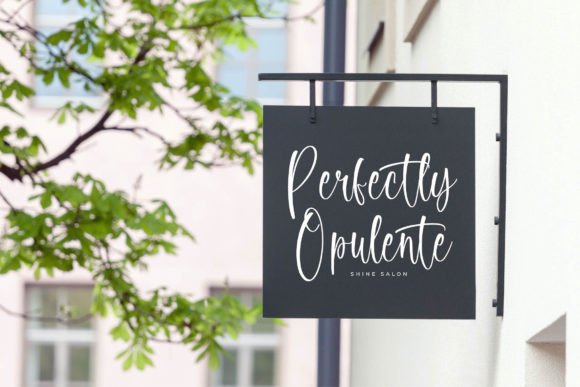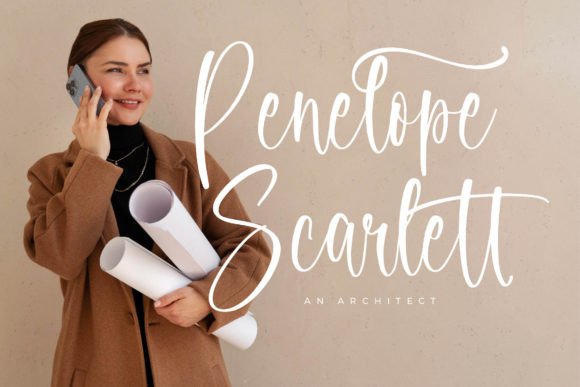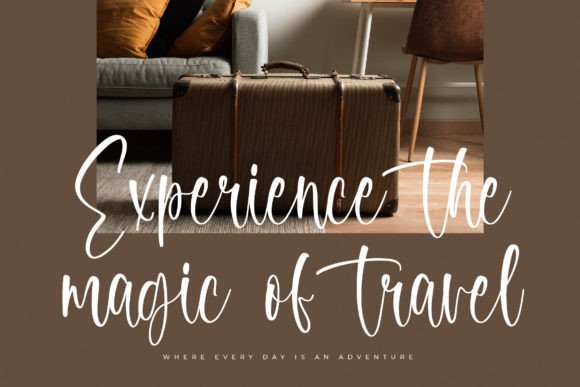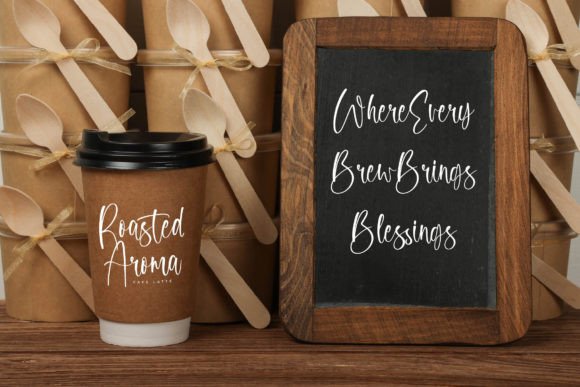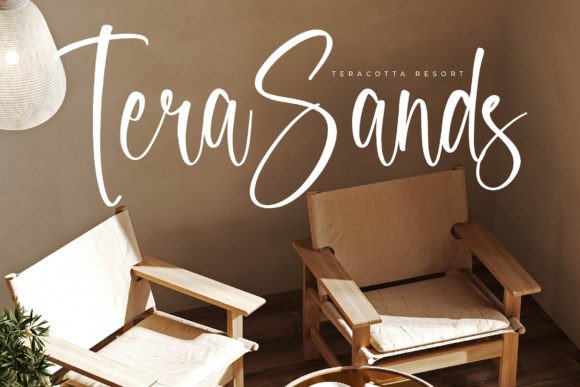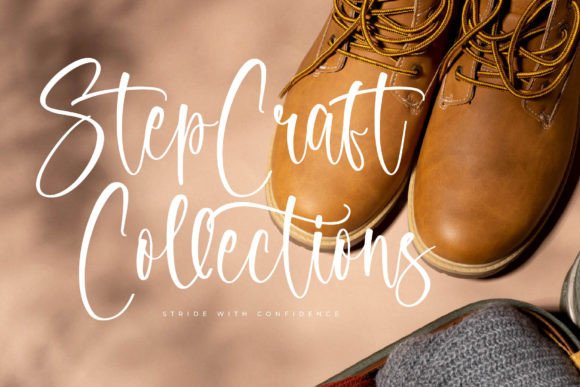
Introduction to Satherly Font
Have you ever stumbled upon a beautifully crafted logo or typography that makes you pause and appreciate the creativity behind it? For designers, this is a moment of joy – the moment when all the hard work and dedication pay off. It’s a reminder that the right design elements can elevate any project and leave a lasting impression. And that’s exactly what the Satherly Font aims to achieve.
Developed by Letterena, this luxury script font is a treasure trove for designers looking to add a touch of elegance to their creative projects. With its high-quality design, Satherly Font is perfect for logos, branding projects, product packaging, and so much more. Whether you’re working on a free download or a paid project, this versatile font is sure to be a valuable addition to your design resource.
From homeware designs to photography, the possibilities with Satherly Font are endless. And with its transparent background, it’s easy to integrate into any project. So why settle for ordinary when you can have extraordinary? Discover the world of Satherly Font and unlock your creative potential.
Key Features of Satherly Font
- Unique, elegant script font with a transparent background, perfect for adding a touch of sophistication.
- Supports a wide range of languages, making it a versatile choice for multilingual creative projects.
- Easy to customize and manipulate, allowing designers to add a personal touch to their work.
Honest Review: Satherly Font
I recently had the opportunity to work with the Satherly Font, and I must say it’s been a pleasant experience. This font is a valuable design resource for any creative project that requires a high-quality, elegant touch.
What works well: ✨ The Satherly Font is incredibly versatile, making it suitable for a wide range of design applications. The high-quality design ensures that it looks great in both print and digital formats. Additionally, the font is available for free download, making it a fantastic resource for designers on a budget.
What doesn’t work so well: ⚠️ While the Satherly Font is an excellent choice for many projects, it may not be the best option for designs that require a bold or edgy look. Additionally, some users have reported issues with the font’s transparent background, which can be problematic for designers who rely on this feature.
Overall, I’m impressed with the Satherly Font and would definitely recommend it to designers looking for a high-quality, free design resource.
- High-quality design suitable for print and digital formats
- Versatile and suitable for a wide range of design applications
Tips for Getting the Most Out of Satherly Font
Experiment with different font sizes and styles to create a visually appealing design. Use the transparent background feature to create a seamless design that blends with your background.
The Satherly Font is ideal for creative projects such as logos, brochures, and business cards. Its high-quality design makes it perfect for professional and personal branding.